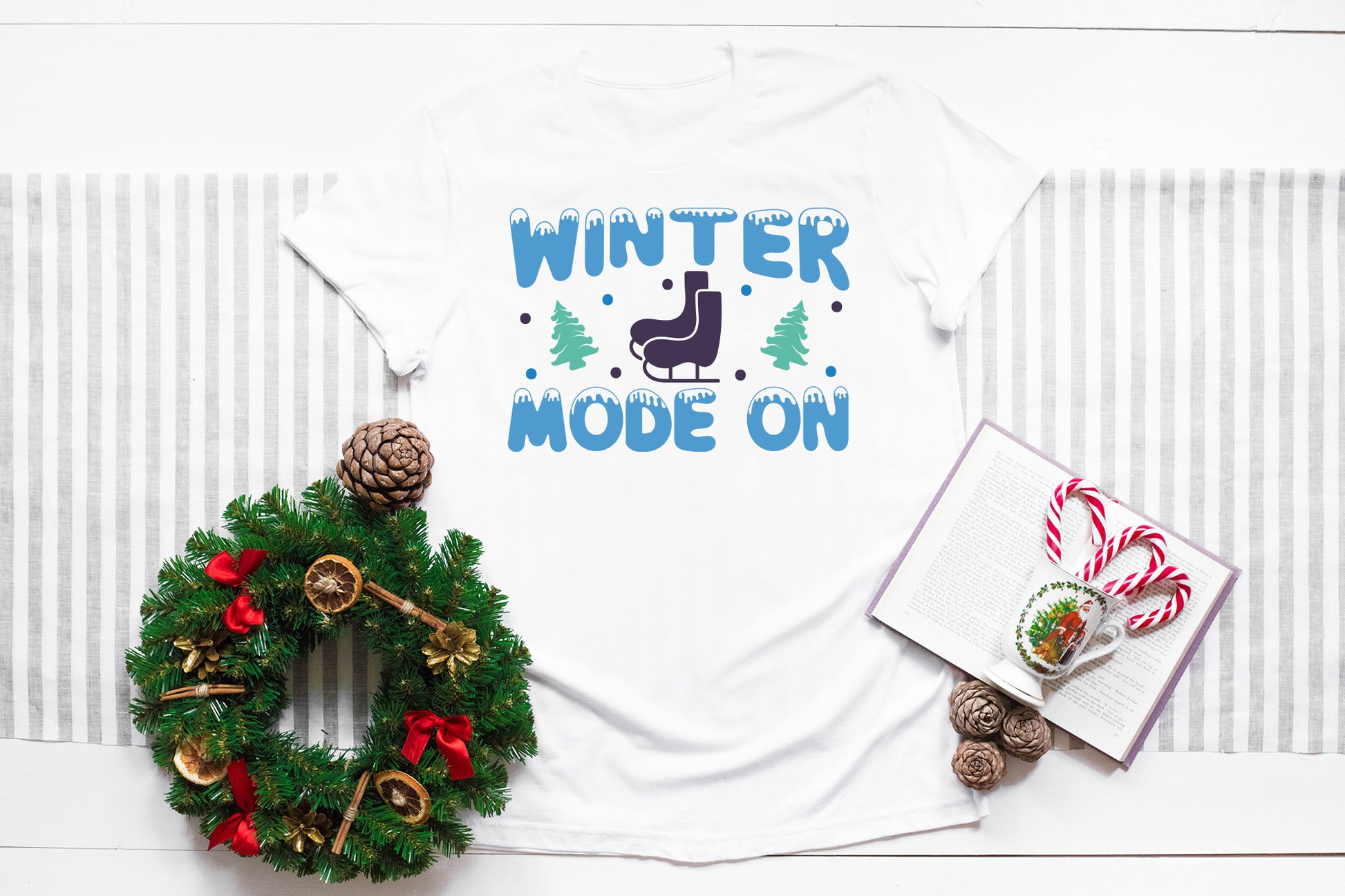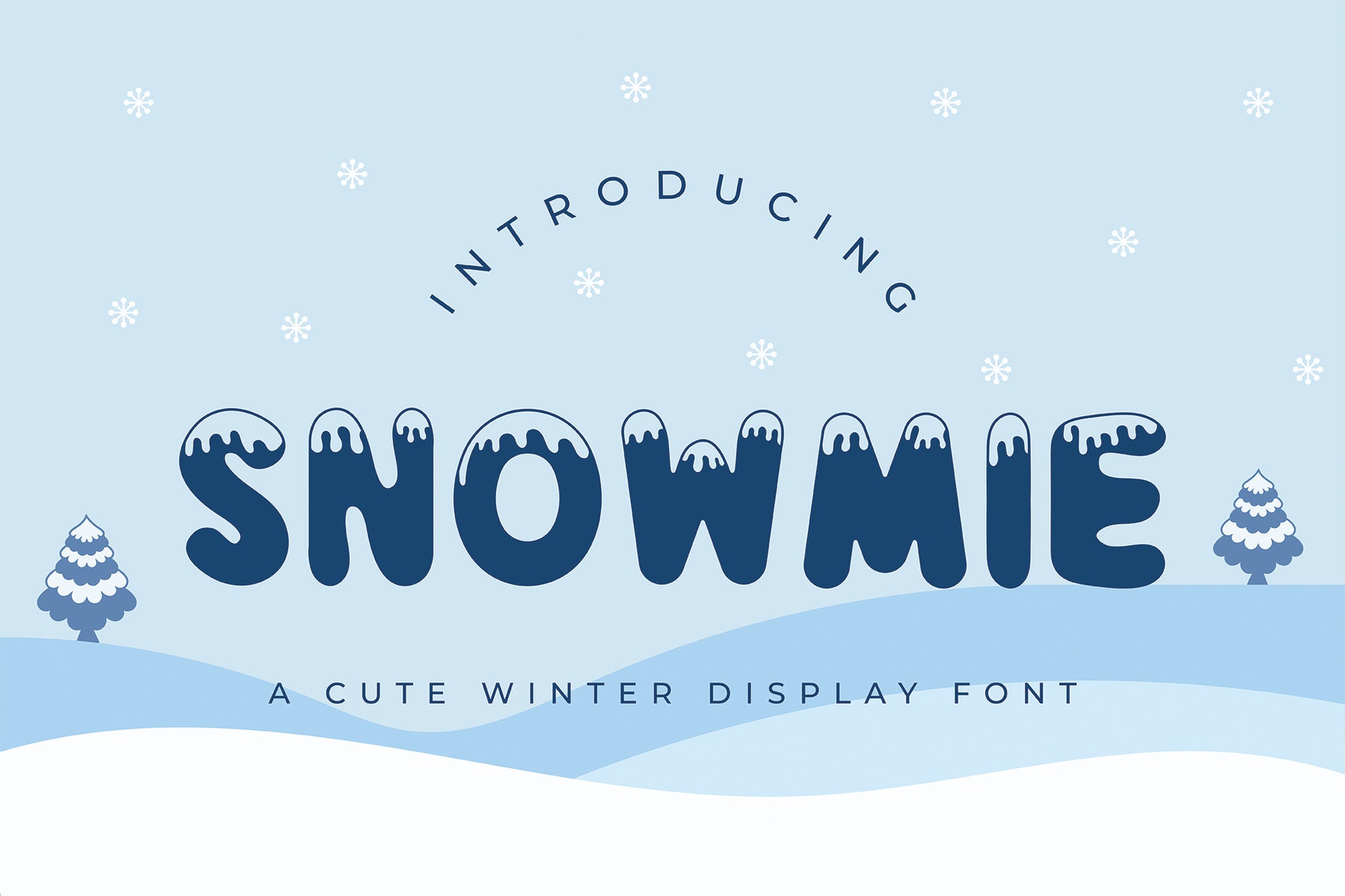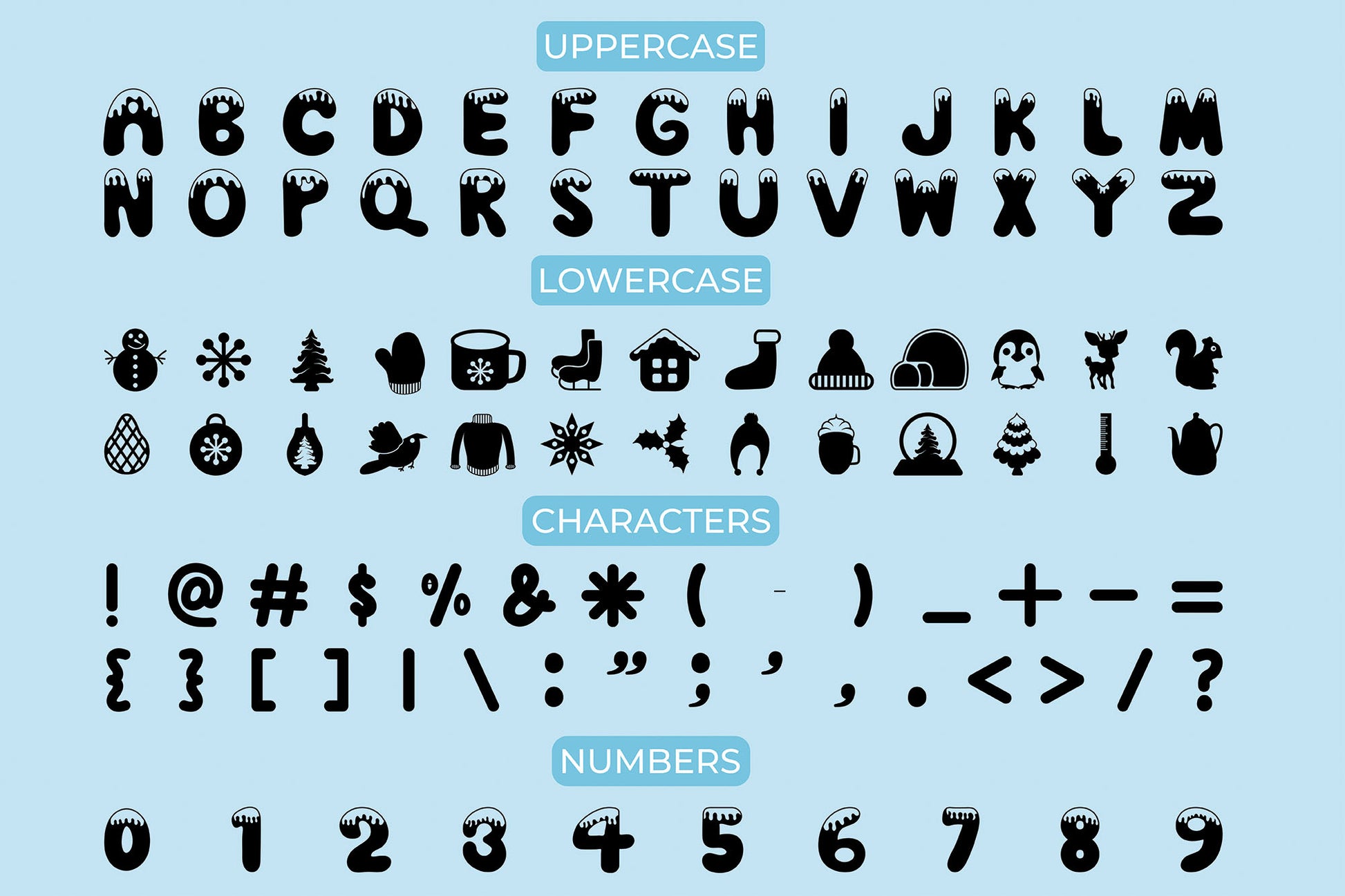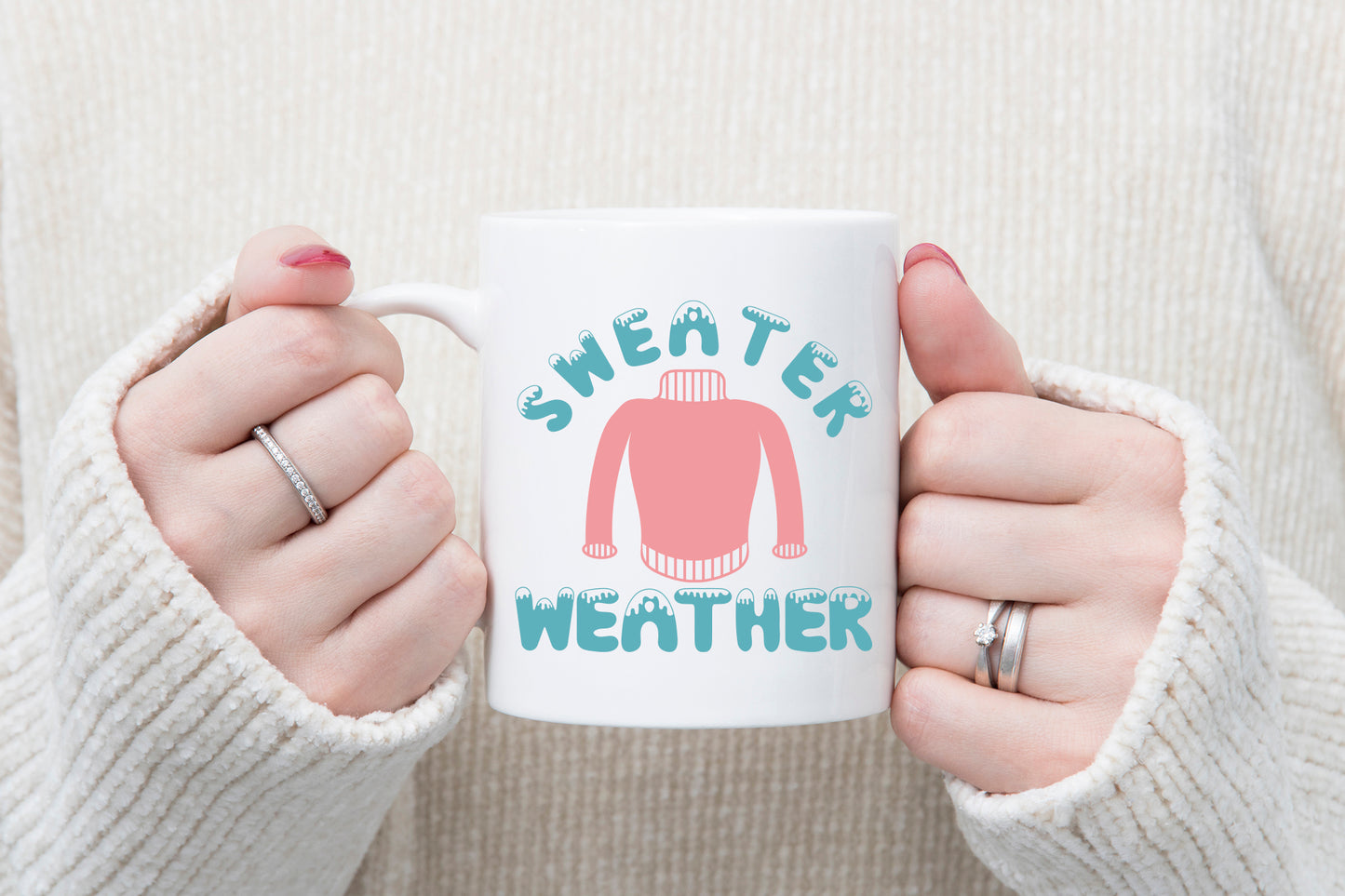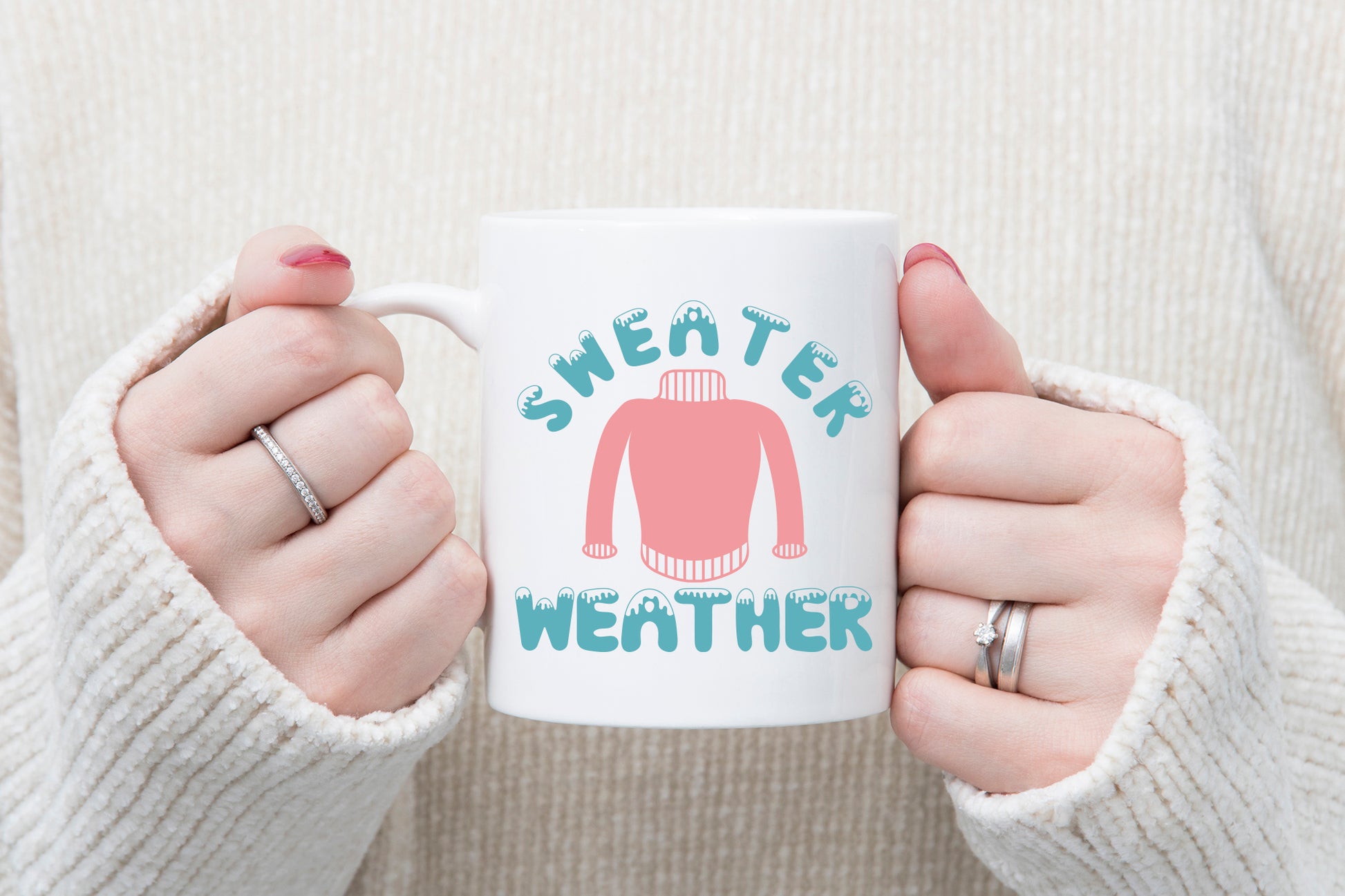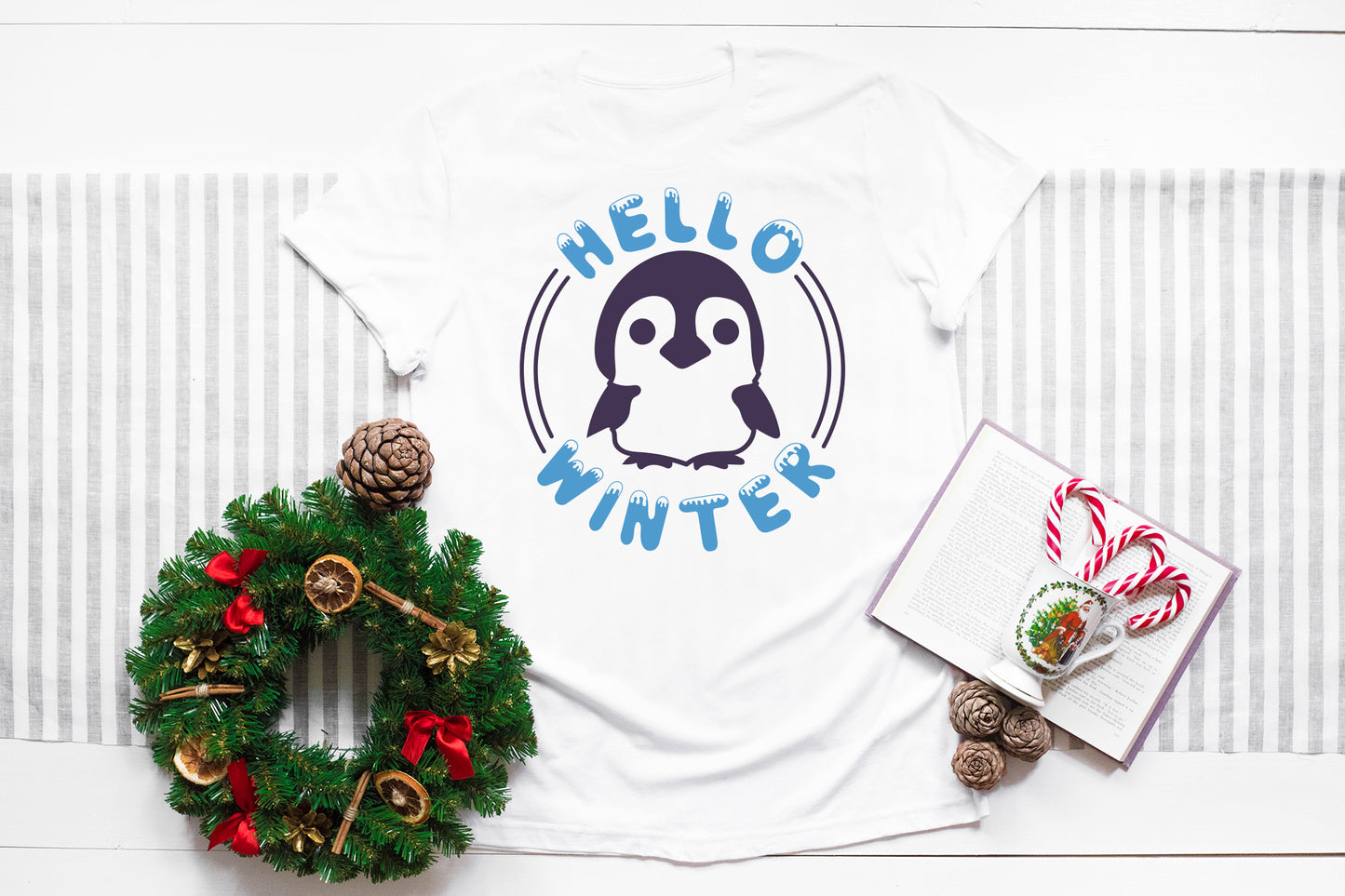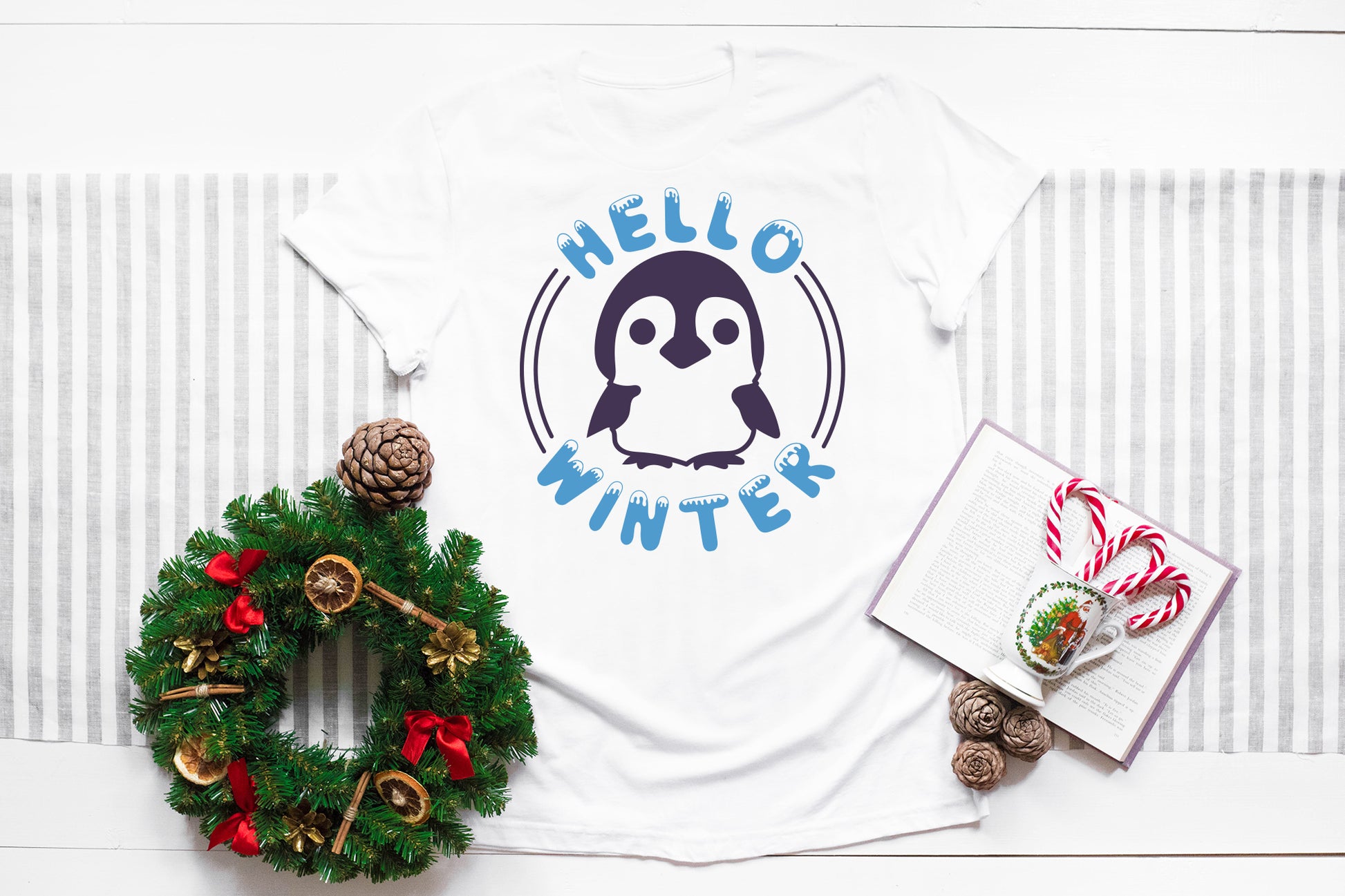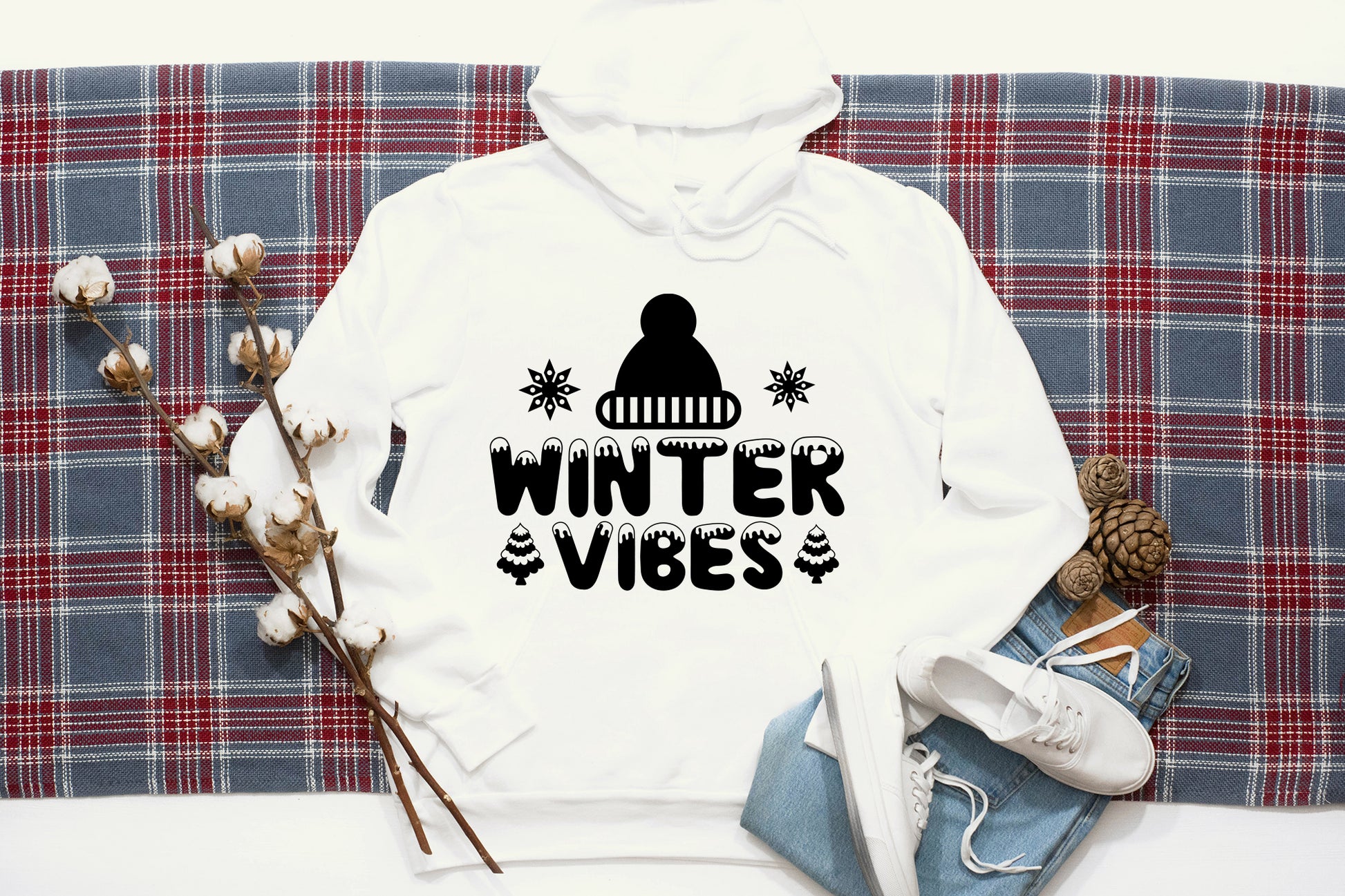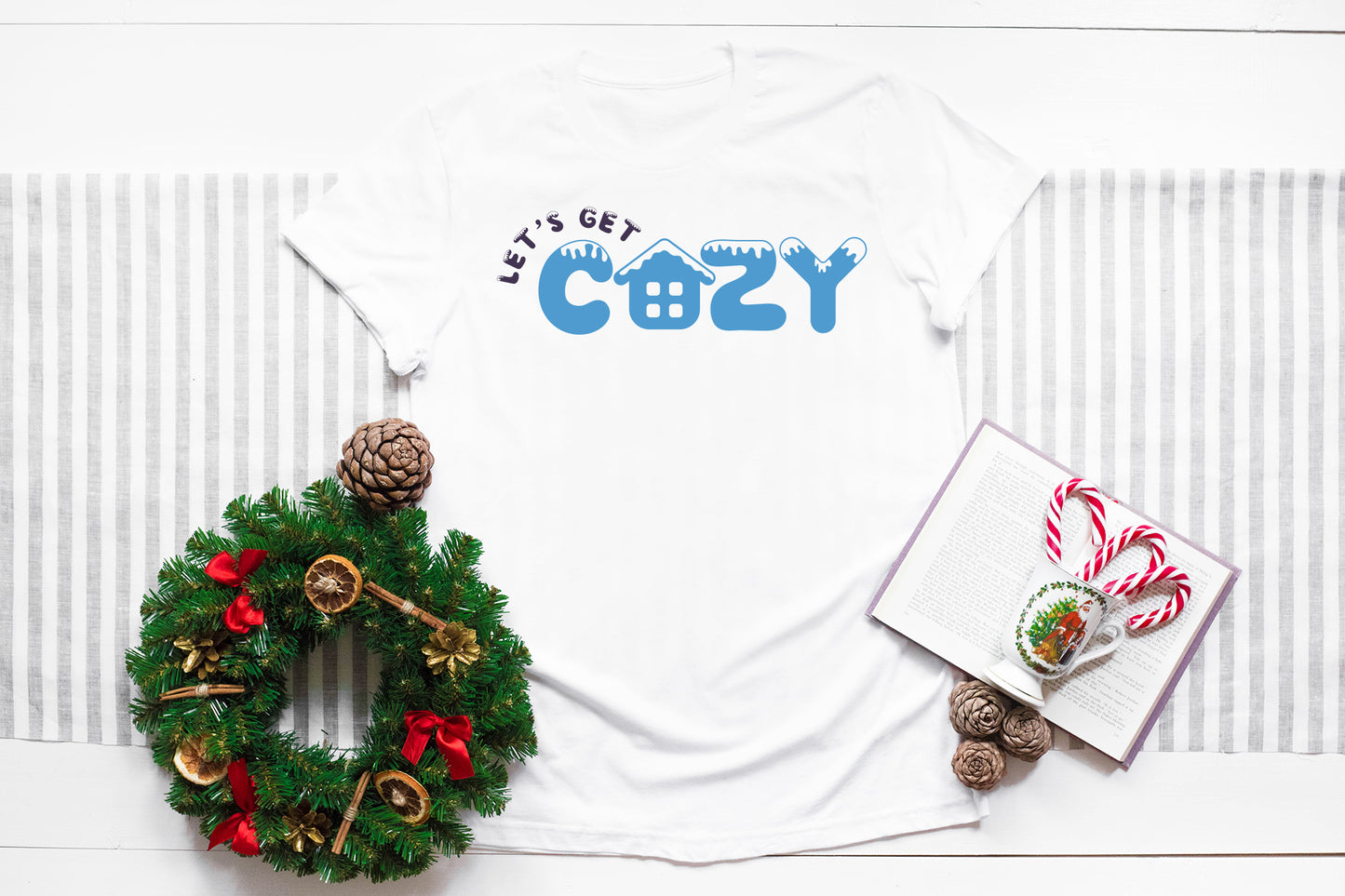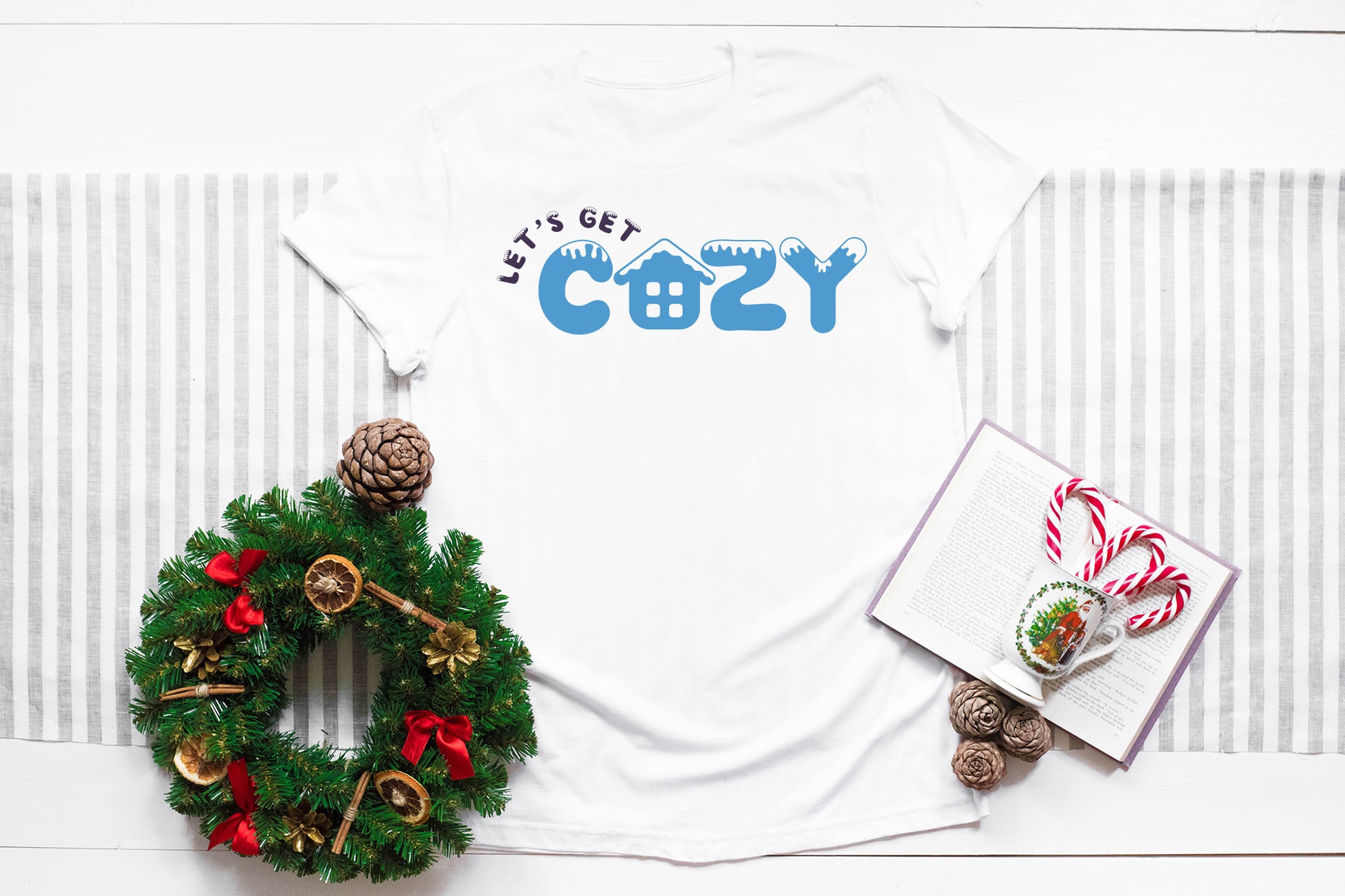
Snowmie Font - A Cute Winter Display Font
Introducing ‘Snowmie’ – a cute and playful winter display font with modern style, suitable for branding, crafting and decorating any holiday project. This font can be perfectly used for greeting cards, logo design, clothing, poster, magazine, packaging, shopping bags, t-shirts, mugs, book covers, and much more.